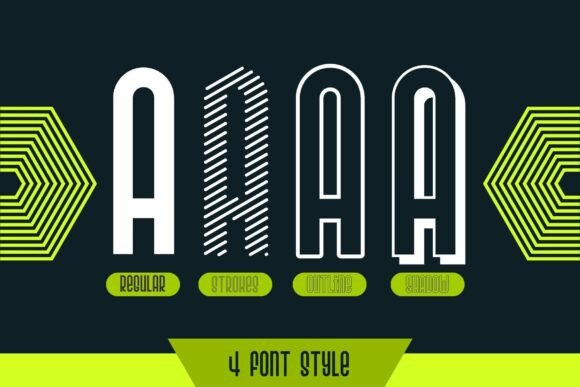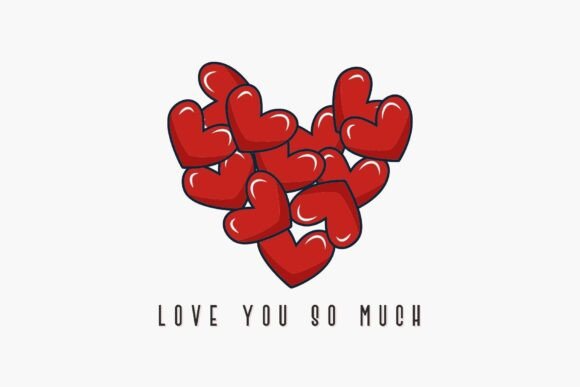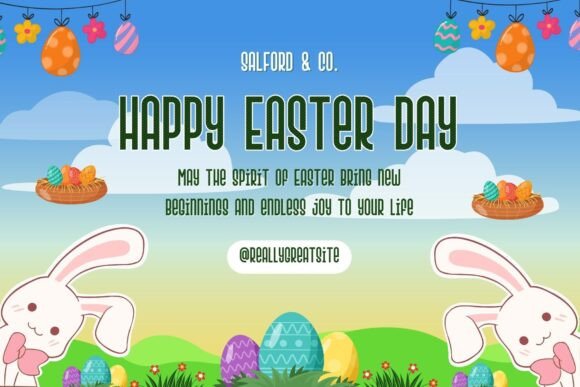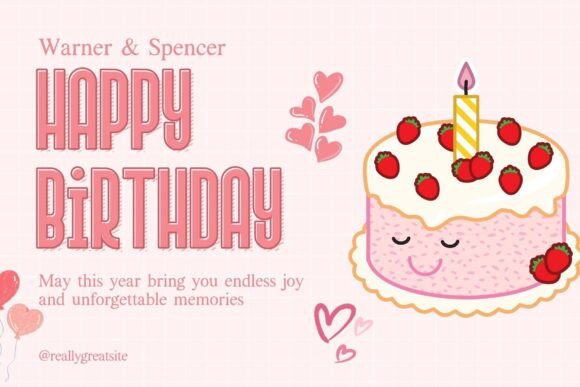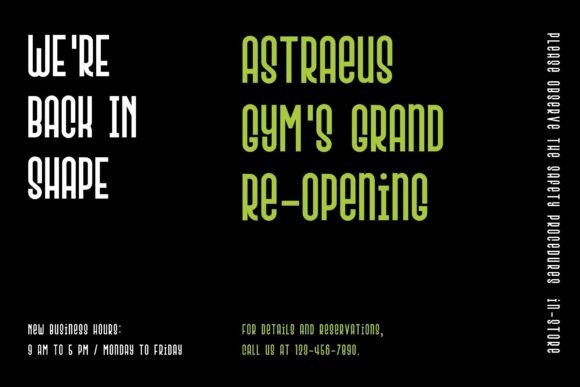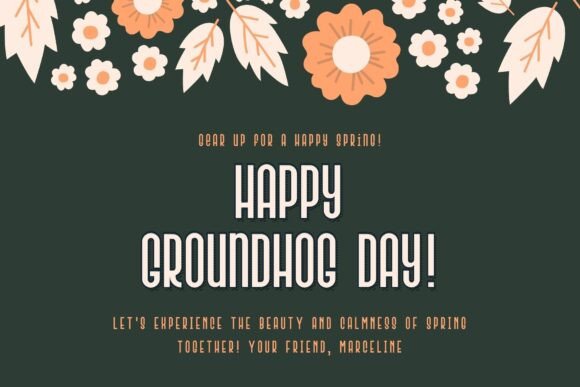
Introducing Fox Matrix Font: Elevate Your Designs with a Futuristic Twist
In the world of typography, fonts play a crucial role in defining the aesthetic and tone of a design. For creative professionals and crafters looking to make a bold statement, Fox Matrix Font is an exceptional choice. This modern and eye-catching display font seamlessly blends a futuristic aesthetic with a stylish geometric design, making it perfect for a wide range of creative projects.
What Makes Fox Matrix Font Stand Out?
Fox Matrix Font is not just another font; it’s a versatile tool that offers four distinct styles: Regular, Strokes, Outline, and Shadow. This variety allows designers to experiment with different looks and choose the one that best fits their project’s needs. Whether you’re working on posters, branding materials, headlines, or digital designs, Fox Matrix provides the dynamic versatility required to capture attention and convey a sense of innovation.
Key Features of Fox Matrix Font
- Modern Aesthetic: Fox Matrix boasts a clean and geometric design that gives it a distinctly modern feel. Its sleek lines and striped textures add a sense of movement and energy to any composition.
- Four Distinct Styles: The font comes in four styles—Regular, Strokes, Outline, and Shadow—each offering a unique take on the Fox Matrix design. This range allows for greater creative flexibility and experimentation.
- High-Impact Look: The bold and striking appearance of Fox Matrix makes it ideal for designs that need to stand out. It’s particularly effective for posters, gaming graphics, sci-fi themes, and urban branding.
- Versatility: From digital designs to print materials, Fox Matrix can be used across various mediums. Its adaptability makes it a valuable asset for designers working on diverse projects.
Perfect for Bold Designs
Fox Matrix Font is specifically designed to make an impact. Its unique blend of clean lines and striped textures not only adds a futuristic touch but also injects a sense of dynamism into your designs. This font is particularly suited for:
- Posters and Flyers: Create eye-catching posters and flyers that demand attention. The bold and geometric design of Fox Matrix ensures your message stands out.
- Branding and Logos: Elevate your brand with a modern and stylish font. Fox Matrix can help you establish a strong and memorable brand identity.
- Digital Designs: Whether it’s a website header, social media graphics, or digital advertisements, Fox Matrix brings a contemporary edge to your digital creations.
- Gaming and Sci-Fi Themes: The futuristic aesthetic of Fox Matrix makes it a perfect fit for gaming graphics, sci-fi movies, and themed events.
Tips for Using Fox Matrix Font
To get the most out of Fox Matrix Font, consider the following tips:
- Experiment with Styles: Don’t be afraid to try out the different styles of Fox Matrix. Mixing and matching the Regular, Strokes, Outline, and Shadow styles can lead to interesting and unique design combinations.
- Pair with Complementary Fonts: For body text or secondary headings, pair Fox Matrix with a simpler, sans-serif font to maintain visual balance.
- Adjust Size and Color: Depending on your design, you may want to adjust the size and color of Fox Matrix to ensure it aligns with your overall aesthetic.
Fox Matrix Font is a powerful tool for designers and crafters looking to infuse their projects with a modern and futuristic vibe. Its geometric design, range of styles, and high-impact look make it an excellent choice for a variety of creative endeavors. Whether you’re aiming to create bold posters, stylish branding materials, or dynamic digital designs, Fox Matrix is sure to elevate your work and make a lasting impression.
So why settle for ordinary when you can make a bold statement with your designs? Choose Fox Matrix Font for your next project and experience the difference it can make.